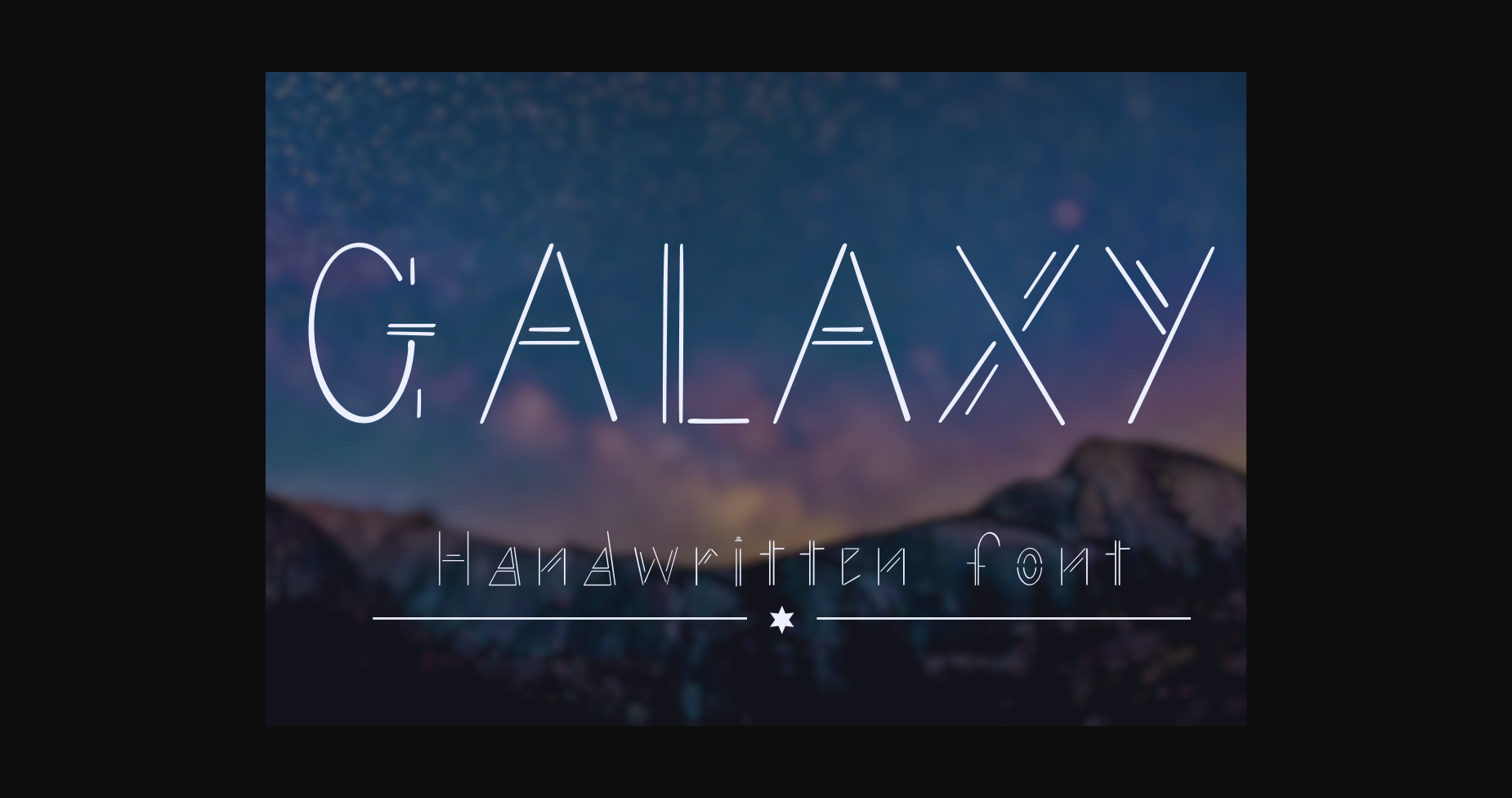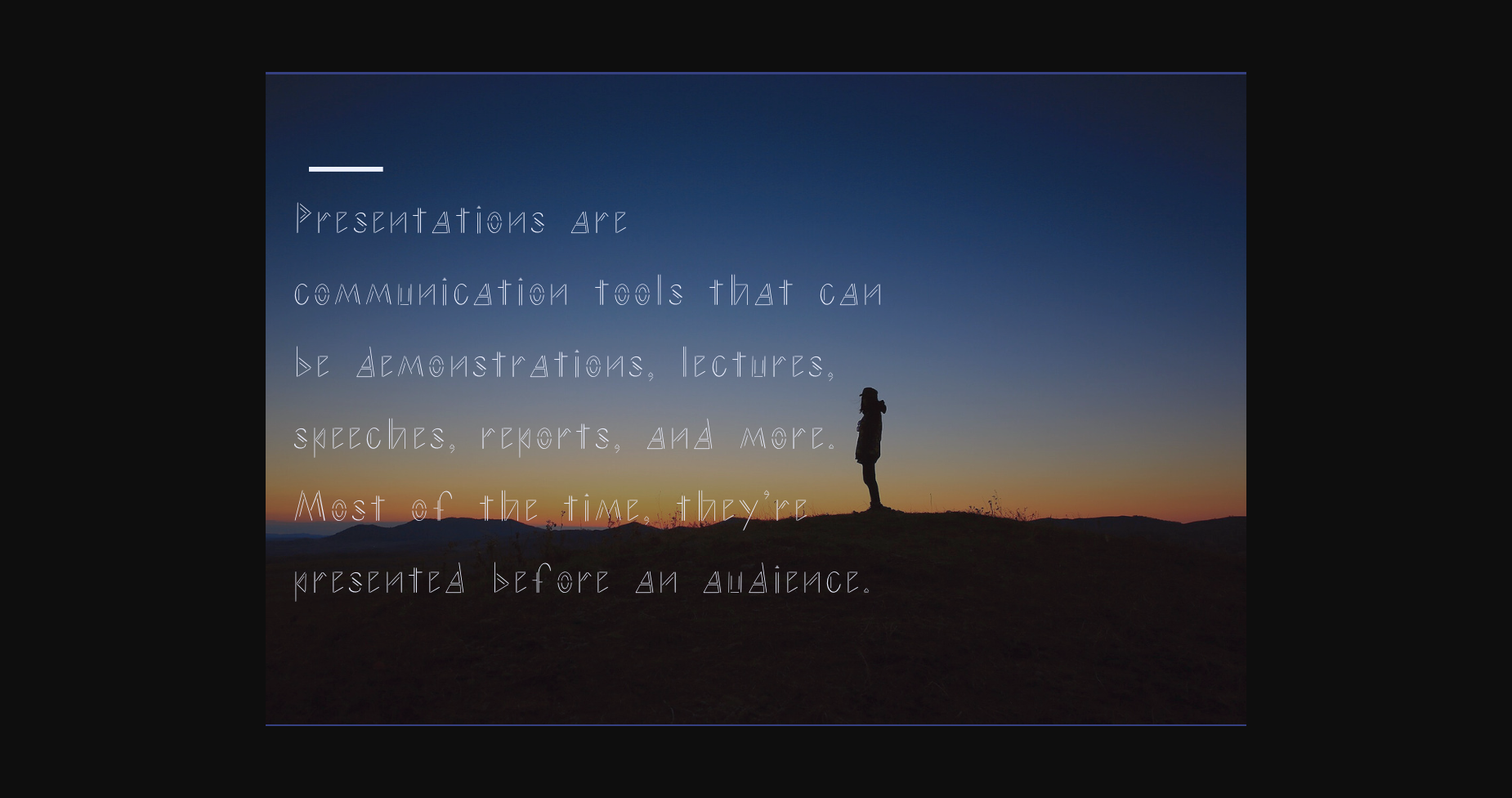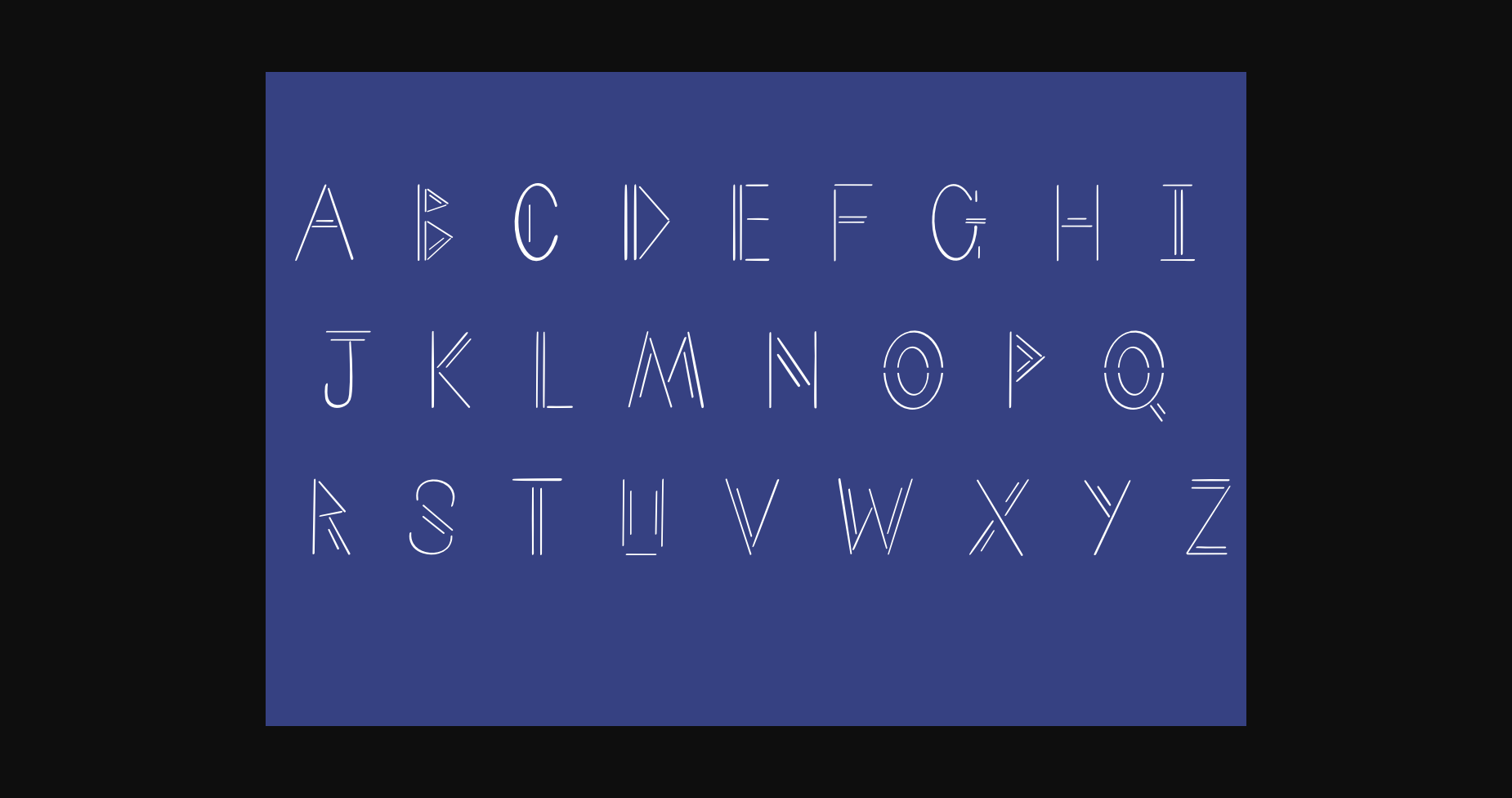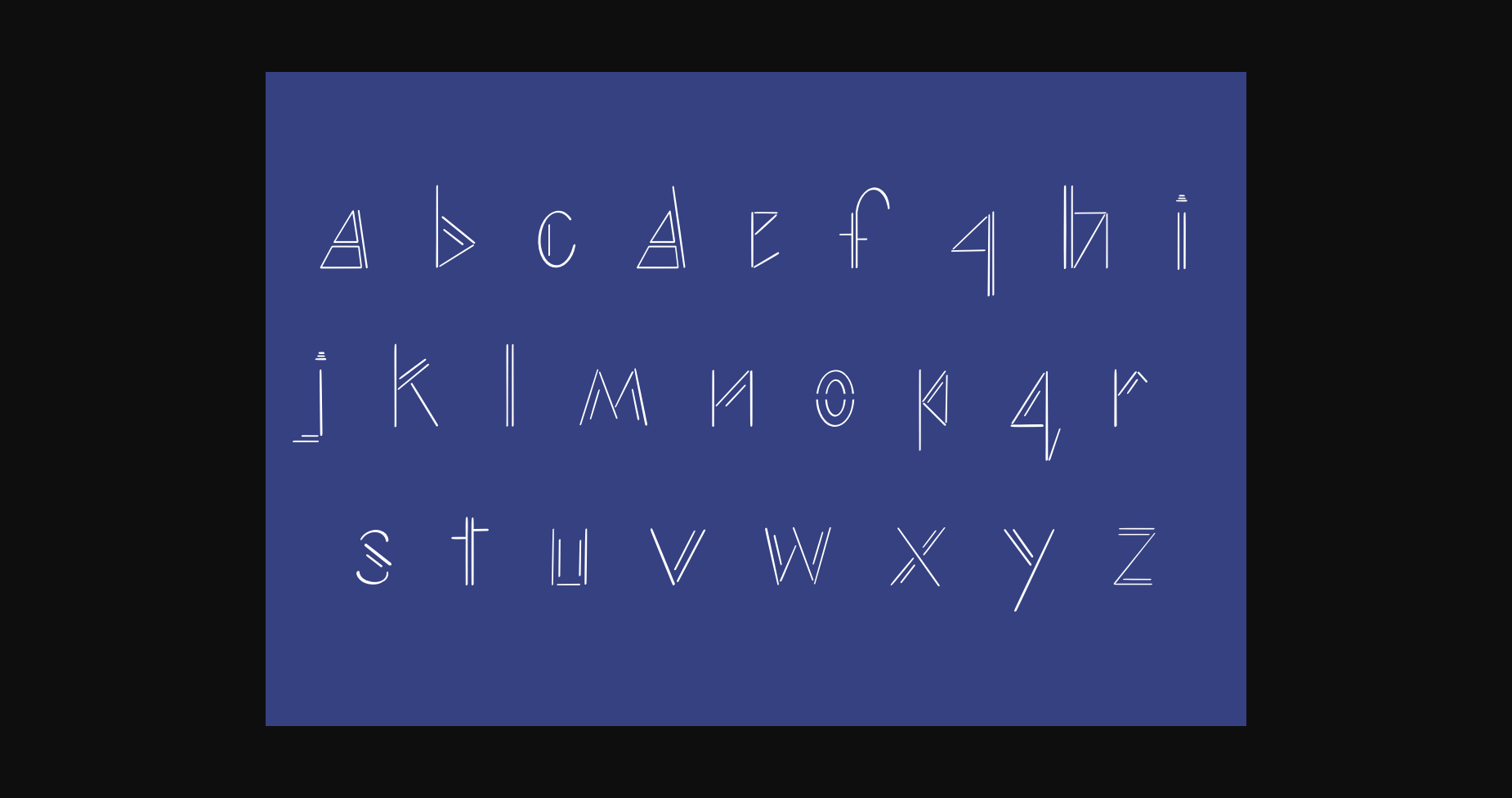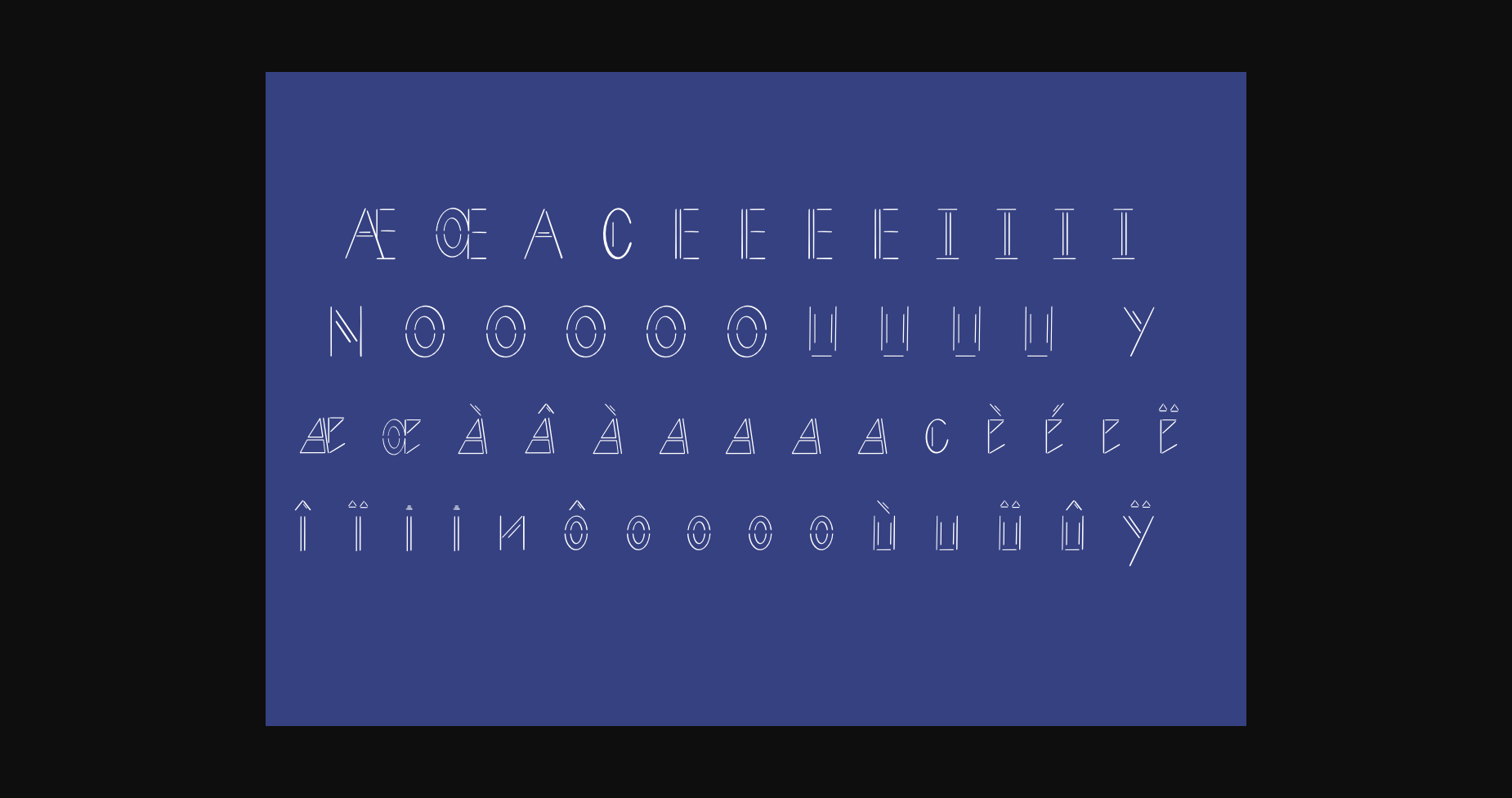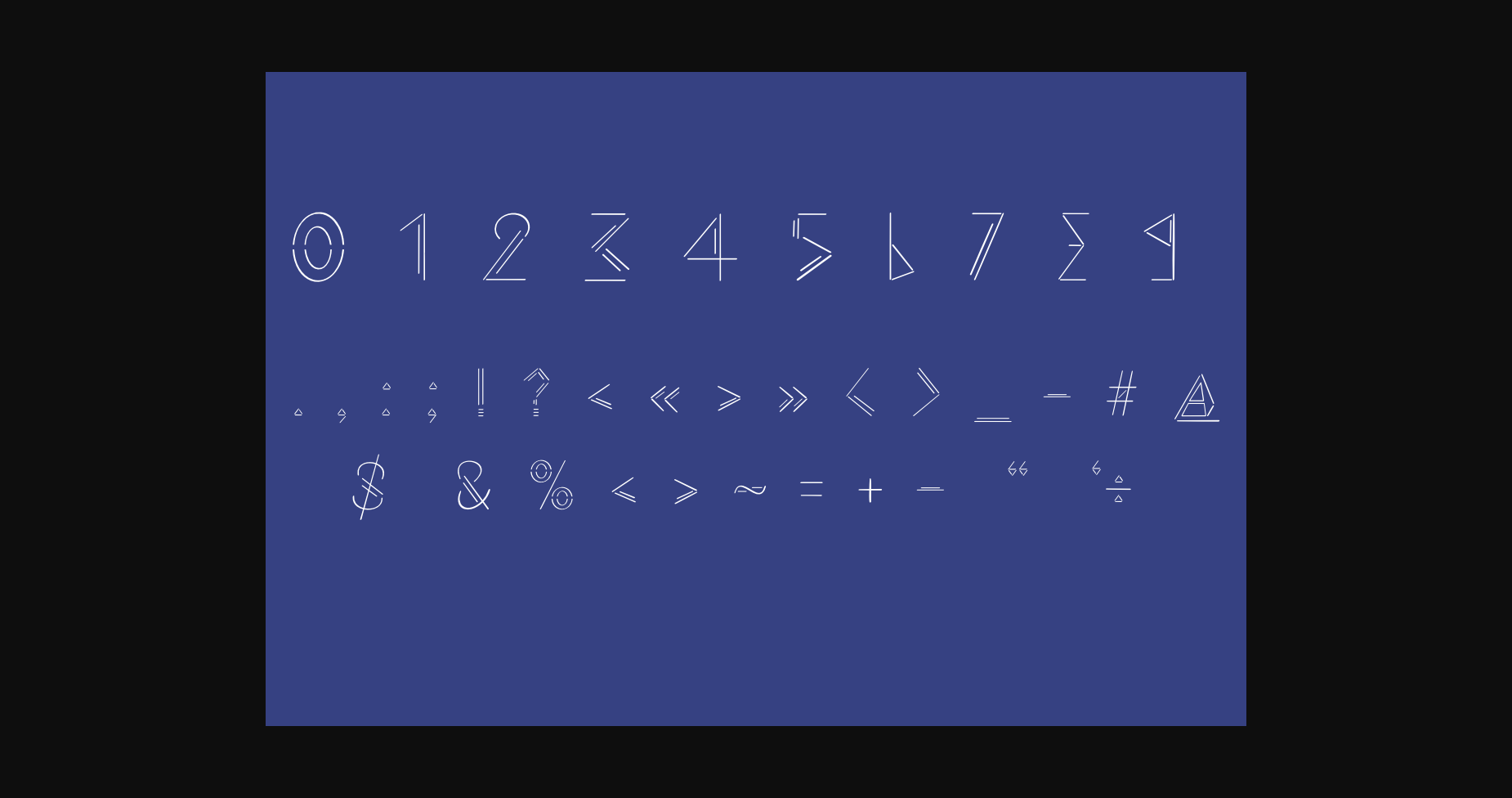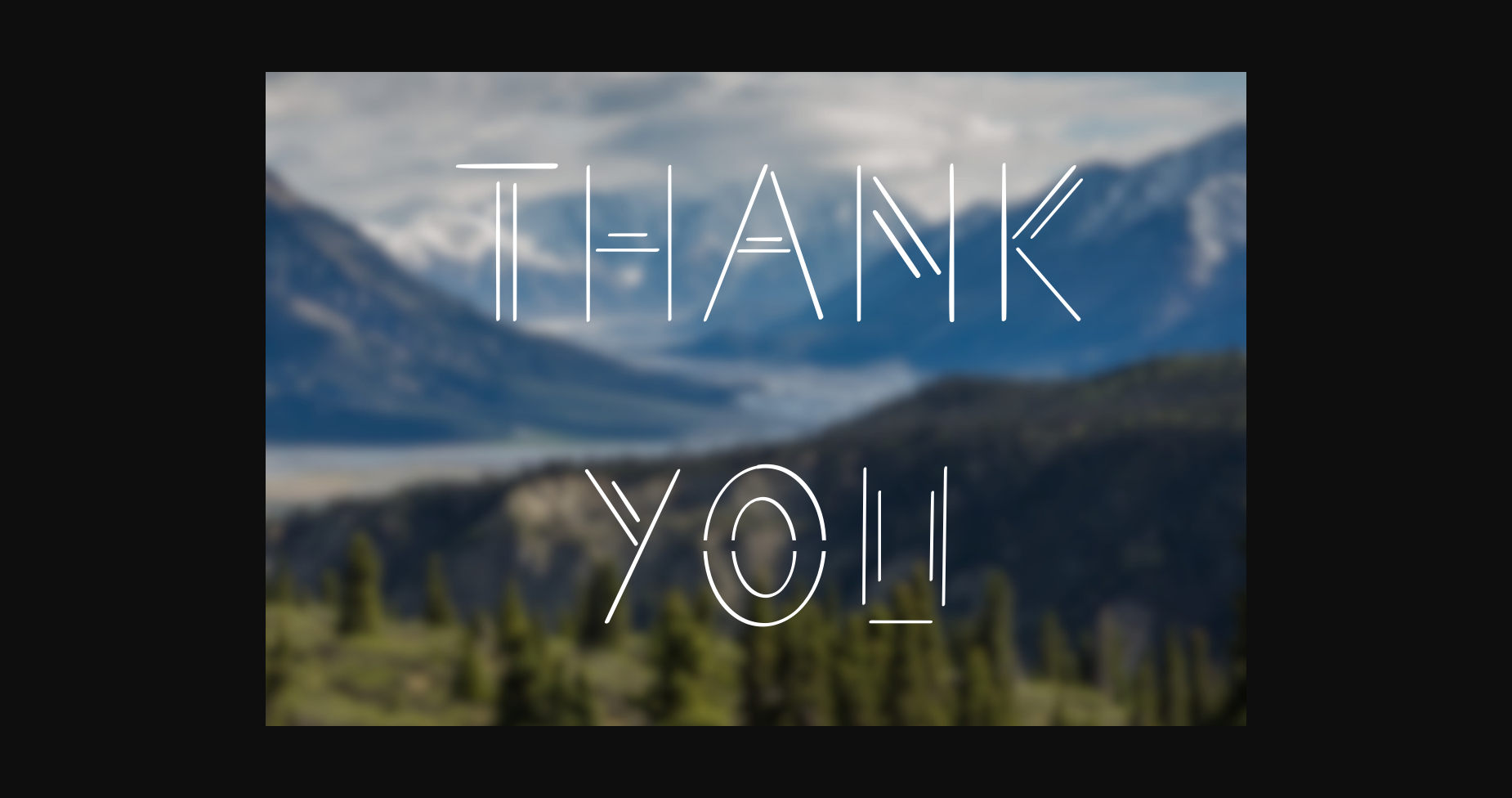
Galaxy Font
About Galaxy Font
Galaxy is a playful handwritten sans serif font. Fall in love with its incredibly distinct and timeless style and use it to create spectacular designs It would be awesome to your fun projects, I hope the text work will make your work stand out and unique to your work.